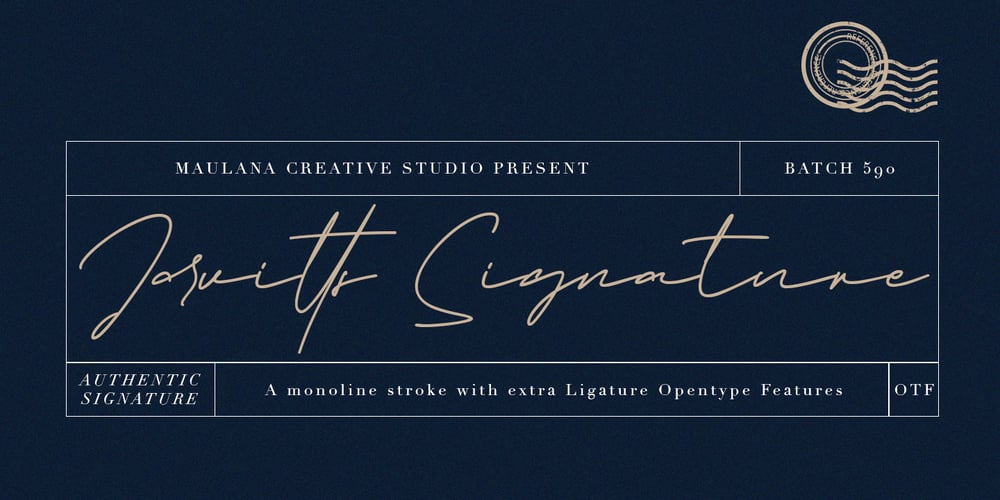
Jarvitts
Jarvitts font
Jarvitts Font Family was designed by Gilang Maulana and published by Maulana Creative. Jarvitts contains 1 styles and family package options. Jarvitts SignatureGive your designs an authentic handcrafted feel. “Jarvitts Signature” is perfectly suited to signature, stationery, logo, typography quotes, magazine or book cover, website header, clothing, branding, packaging design and more.Thanks for use this font ~ Maulana